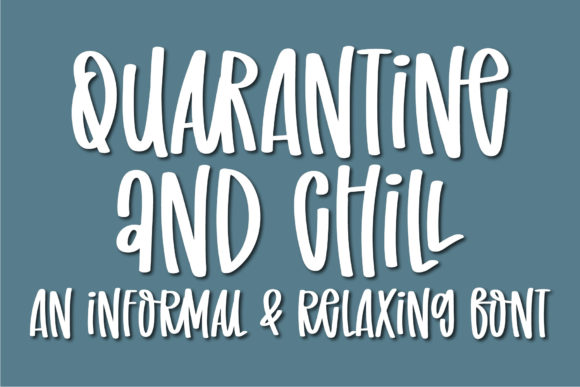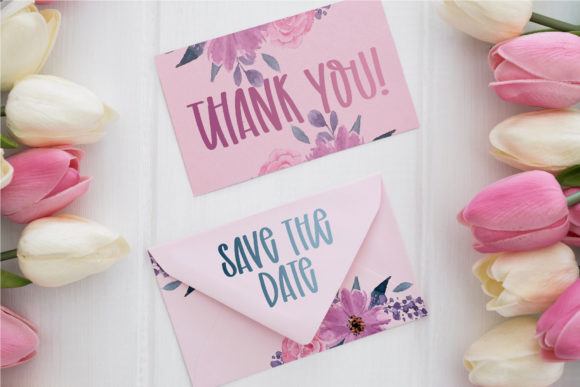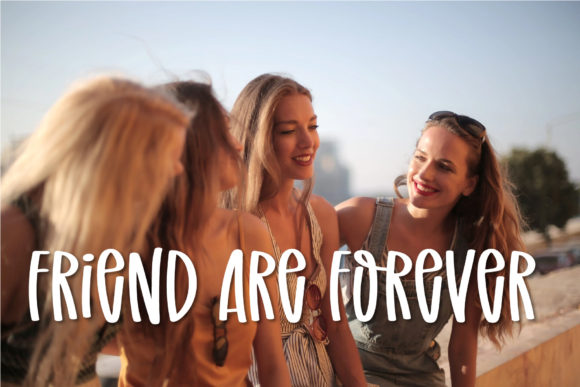
About Quarantine and Chill Font
Quarantine And Chill is a cool, friendly, and informal handwritten font, that can be used for all chalkboard quotes or teaching material! Its authentic look and feel will add a personal and realistic feel to your designs.